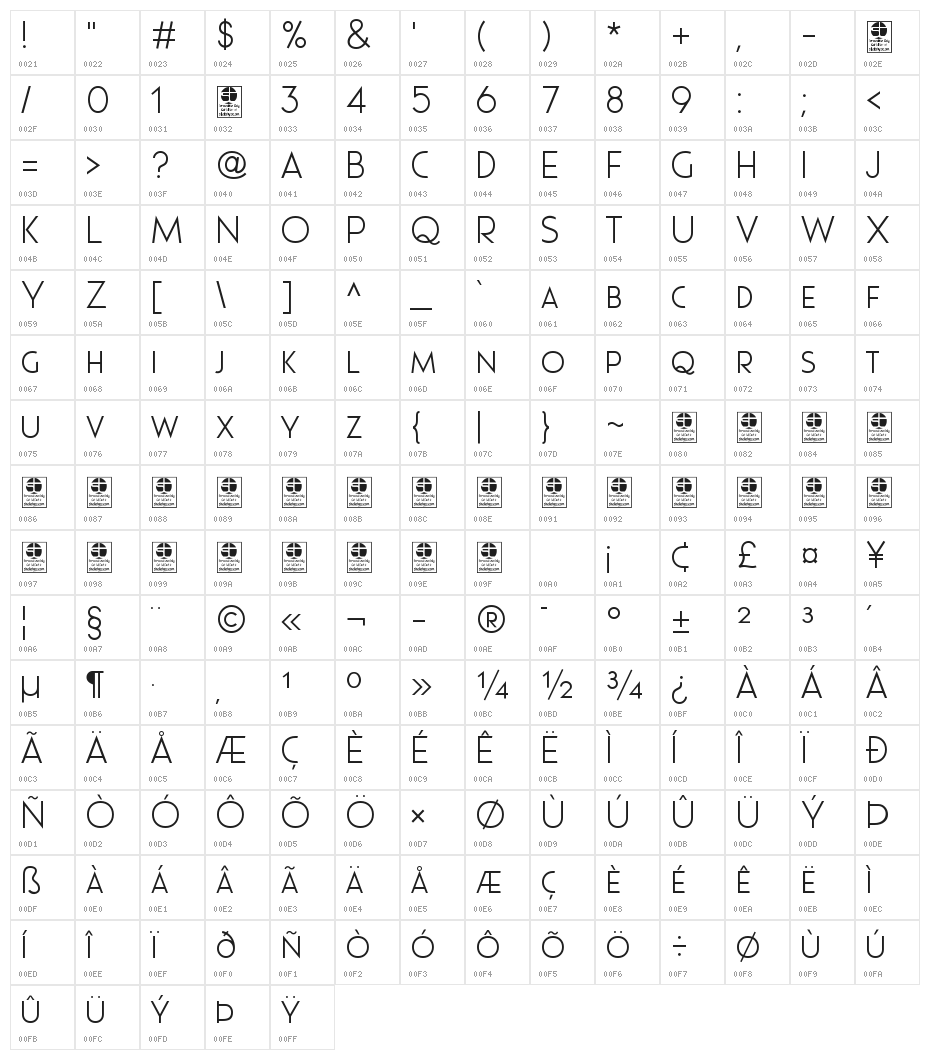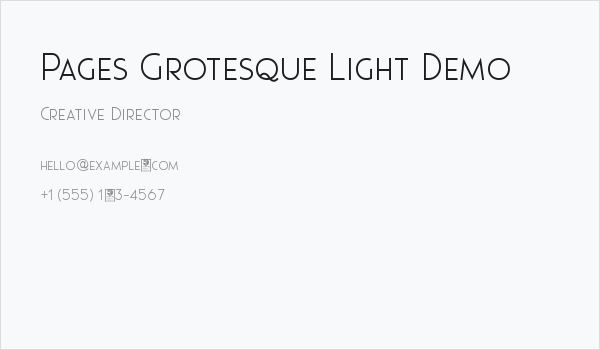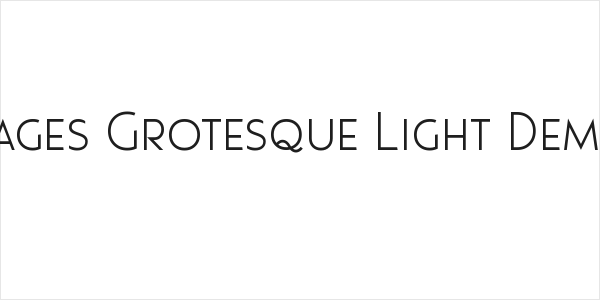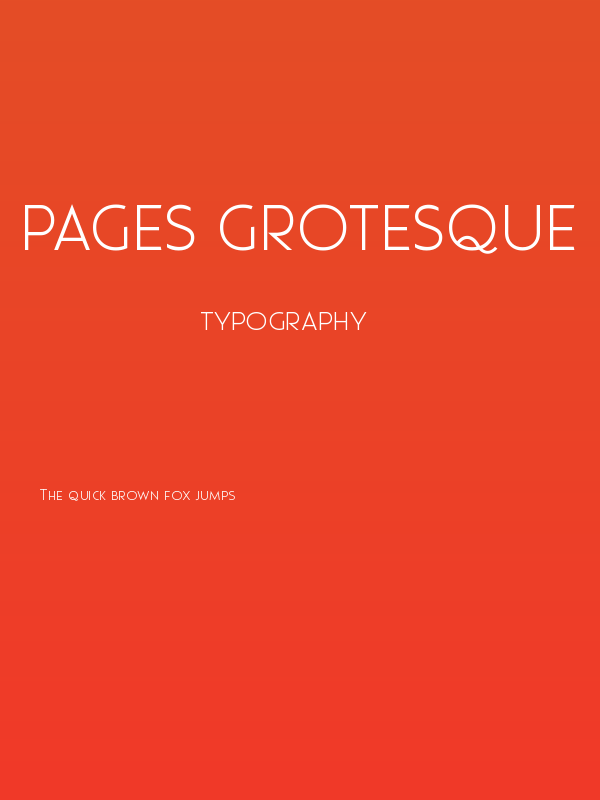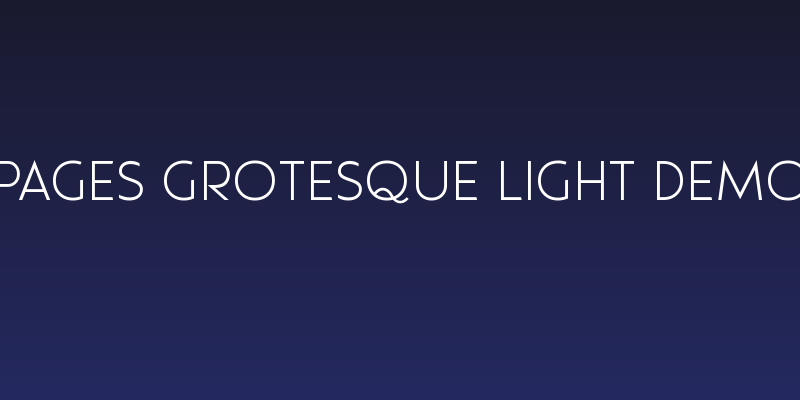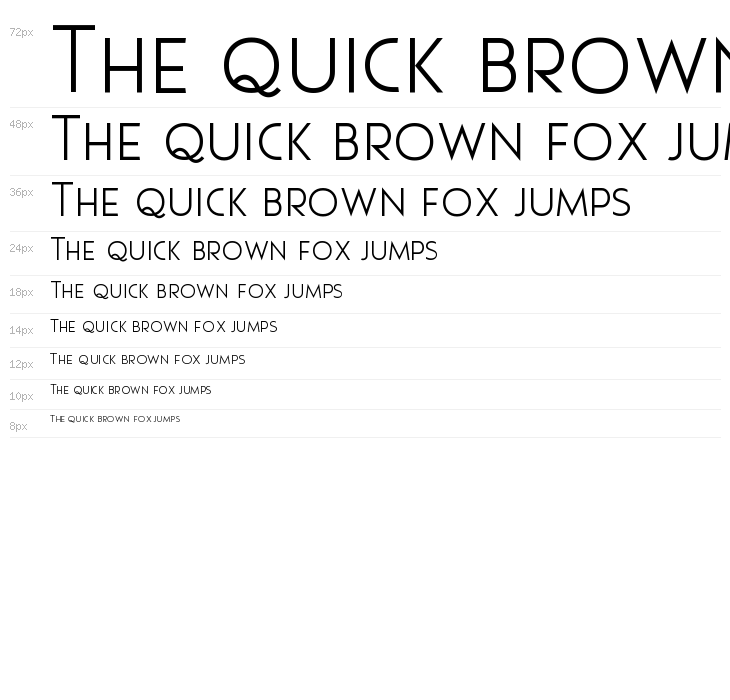
Pages Grotesque Light Demo Font
Pages Grotesque Light Demo Description
This font features a clean and modern sans-serif design with a light weight, offering a sleek and minimalist appearance. The characters are well-proportioned with a consistent stroke width, providing a uniform and harmonious look. The uppercase and lowercase letters maintain a geometric structure, enhancing readability and versatility. The numerals and special characters are designed with the same attention to detail, ensuring a cohesive visual style across all elements. This font is ideal for projects that require a contemporary and professional aesthetic.